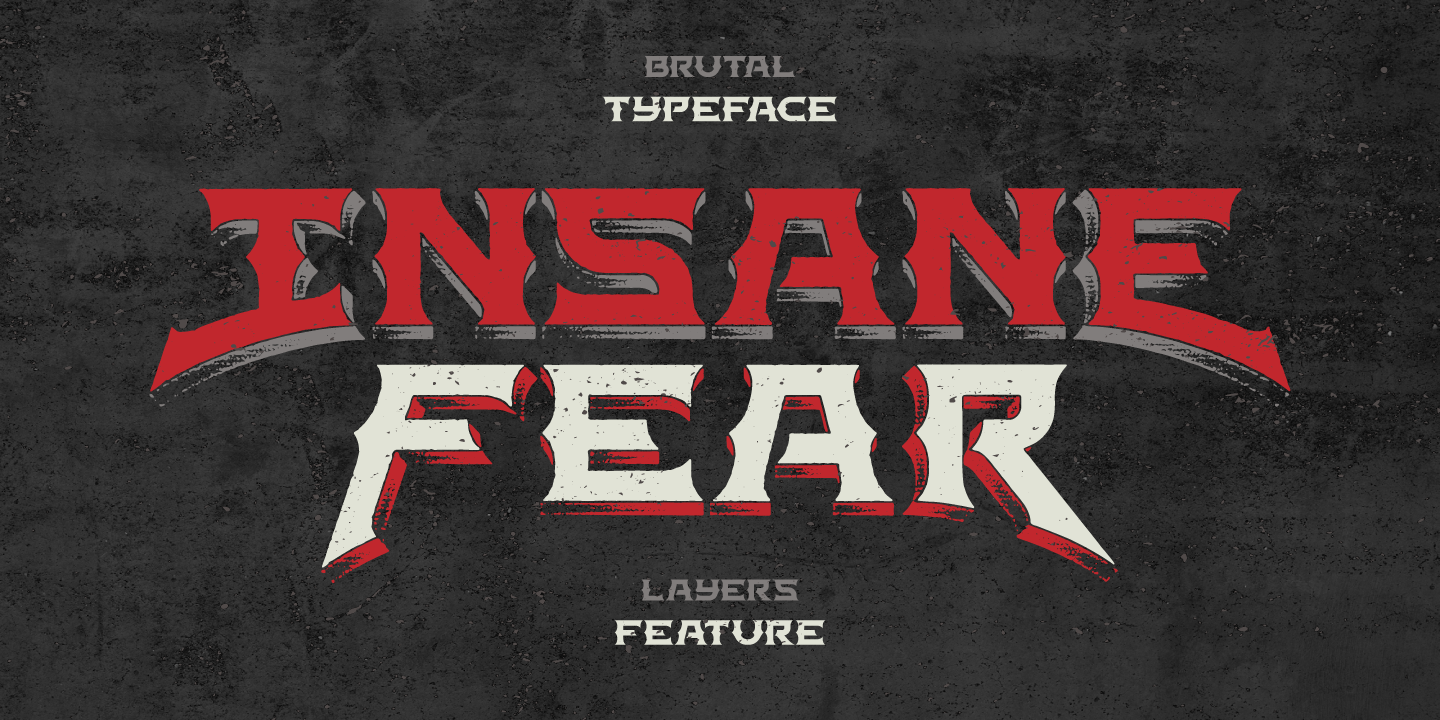
Insane Fear Font is perfect for horror movie posters, Halloween event flyers, gothic album covers, thriller book titles, haunted house signage, metal band logos, scary video game interfaces, and dark fantasy artwork designs.
Insane Fear Font is exciting because it captures the raw essence of terror and psychological unease through its distorted letterforms and menacing aesthetic. This typeface transforms ordinary text into spine-chilling visual statements that immediately evoke feelings of dread and suspense, making it an indispensable tool for creators in the horror and dark entertainment industries.
The Insane Fear Font family includes Regular, Bold, Distressed, and Shadow variations, along with special glitch effects and torn letter alternates. Each family member maintains the frightening core aesthetic while offering different levels of intensity and visual impact for various horror-themed design applications.
Insane Fear Font stands out in the display typography world due to its authentic horror atmosphere and psychological impact. The font's jagged edges, irregular spacing, and deliberately damaged appearance create an immediate sense of unease that resonates with audiences seeking thrilling and supernatural experiences. Its design philosophy embraces chaos and fear as powerful communication tools.
The dramatic character of Insane Fear Font makes it exceptionally effective for entertainment industry applications. Horror film studios, haunted attraction operators, gothic fashion brands, and dark music artists frequently utilize this font to establish their brand identity and communicate their artistic vision. The font's ability to instantly convey menace and mystery makes it invaluable for creating memorable and impactful marketing materials.
Digital horror content creators appreciate Insane Fear Font Free Download for its versatility across multiple platforms. Whether designing YouTube thumbnails for horror content, creating social media graphics for Halloween campaigns, or developing user interfaces for horror games, this font maintains its terrifying impact while ensuring readability and technical performance.
The psychological impact of Insane Fear Font extends beyond simple decoration to become a crucial storytelling element. Its distorted letterforms suggest madness, decay, and supernatural forces, making it particularly effective for psychological horror themes and dark narrative projects. The font's ability to evoke emotional responses makes it a powerful tool for immersive storytelling.
Modern horror aesthetics demand fonts that can compete with sophisticated visual effects and high-production values. Insane Fear Font delivers cinematic quality typography that enhances rather than detracts from professional horror productions. Its carefully crafted distortion effects and atmospheric presence make it suitable for both independent projects and major studio releases.